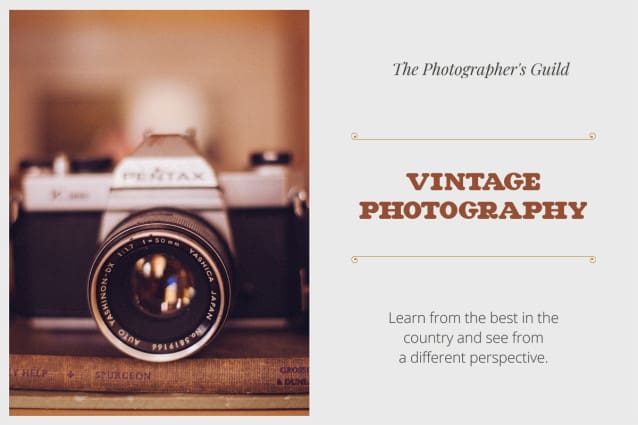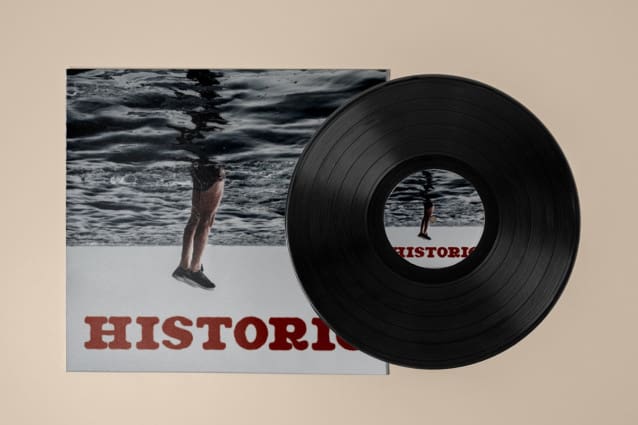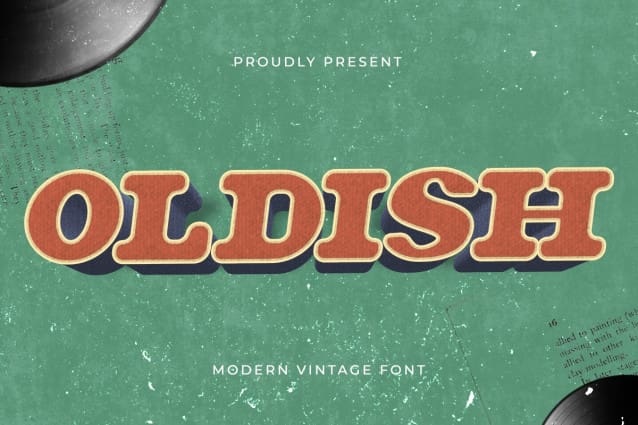
Oldish Font
Oldish Font – Modern Retro Font provides a new look that is different from the general display fonts. This font carries a vintage, simple, and upright feel. It can also use as a bold and modern font. Oldish Font – Modern Retro Font is illegible.
Oldish Font – Modern Retro Font has many matches when combined with the product. Fashion brand tags such as clothing will work well with this typeface. There is no need to add excessive pictures and ornaments because the Oldish Font – Modern Retro Font has presented its identity where a simple yet classic impression radiates. Oldish Font – Modern Retro Font is a typeface that can use as digital fonts and print fonts. This font can use as a title that appears first in intro videos that catch the viewer’s attention at a first impression.
Posters and magazine cover work especially well when using the Oldish Font – Modern Retro Font. This is because this font can be seen clearly and can be distinguished from every letter.